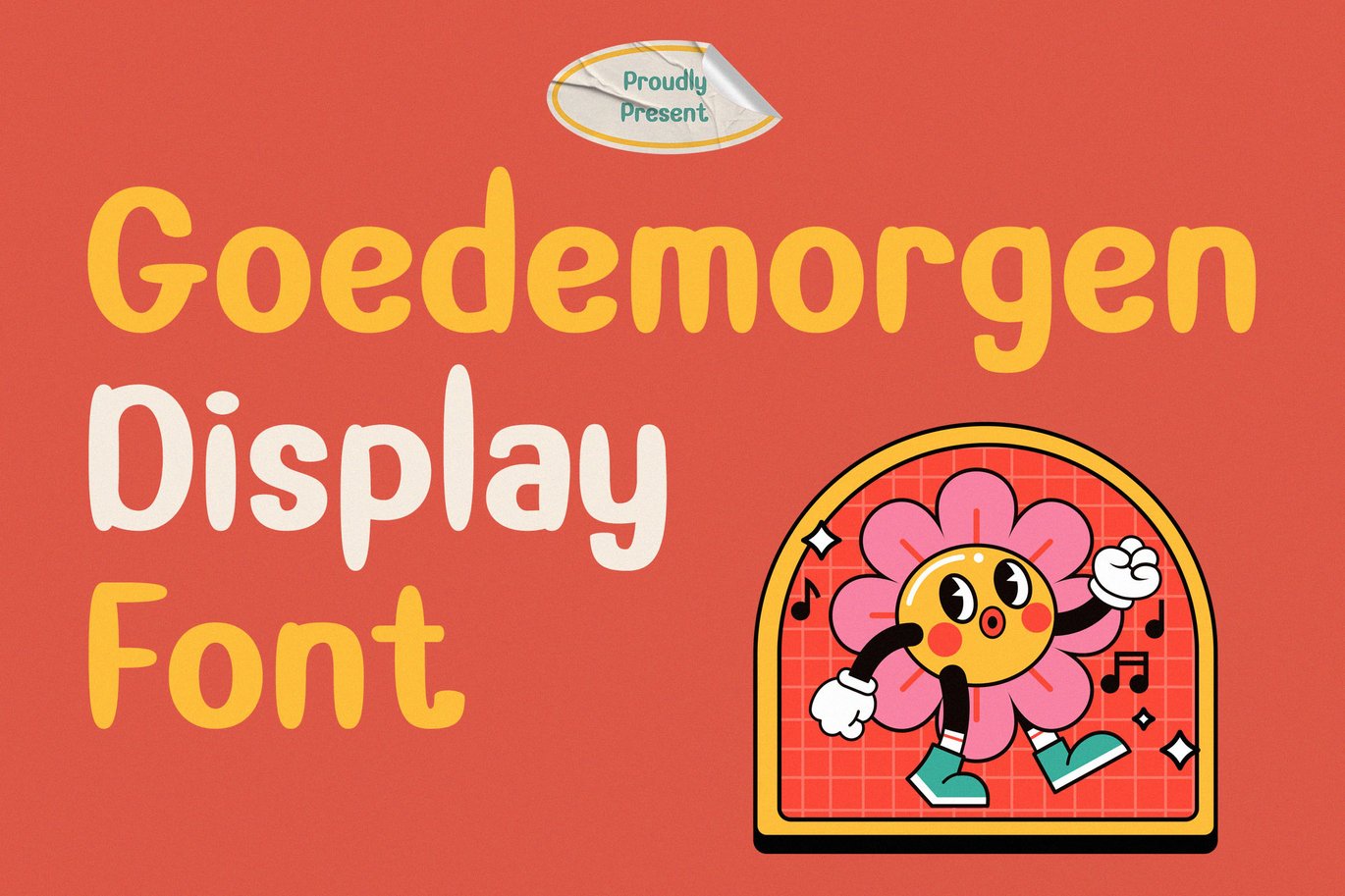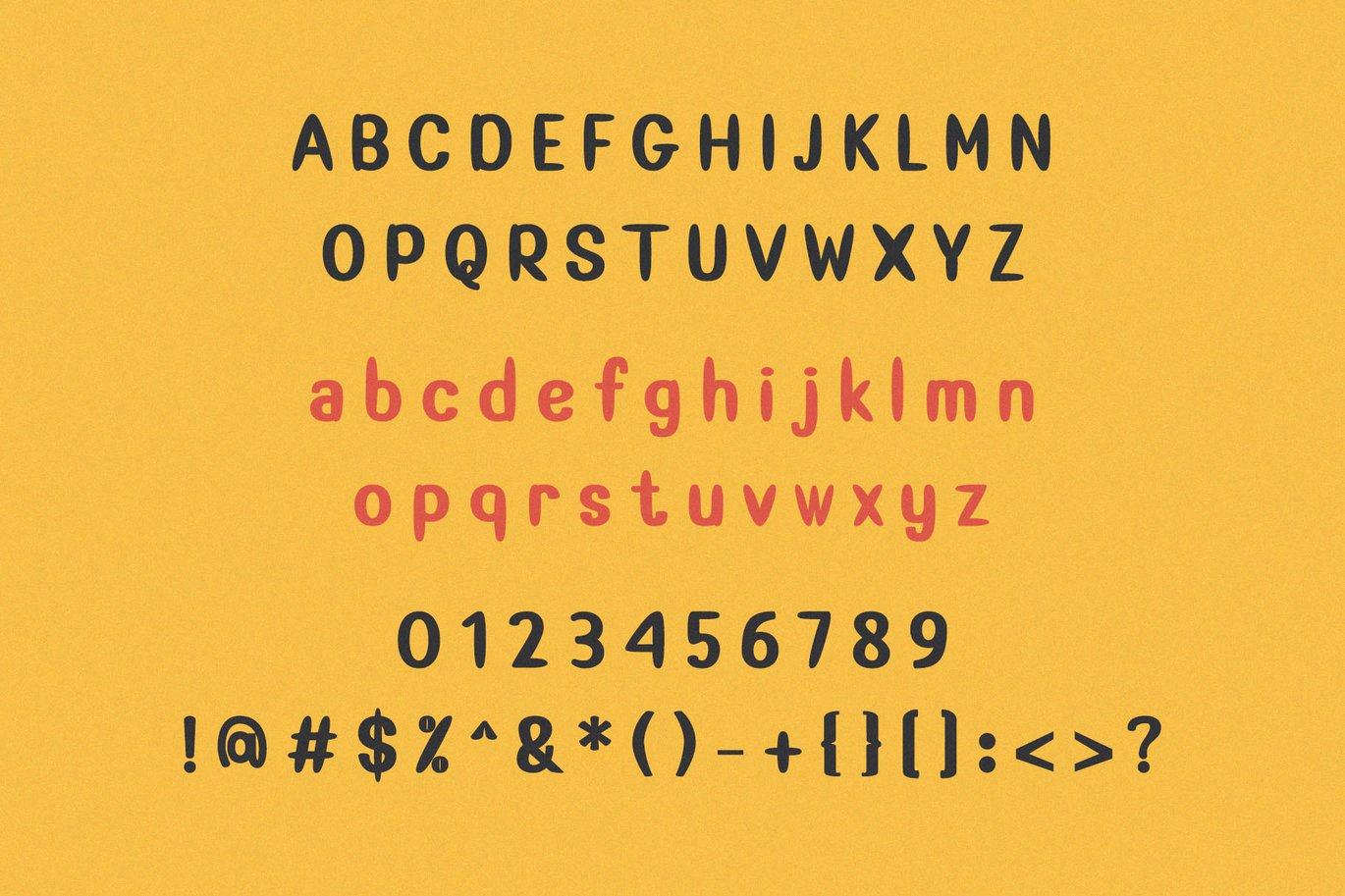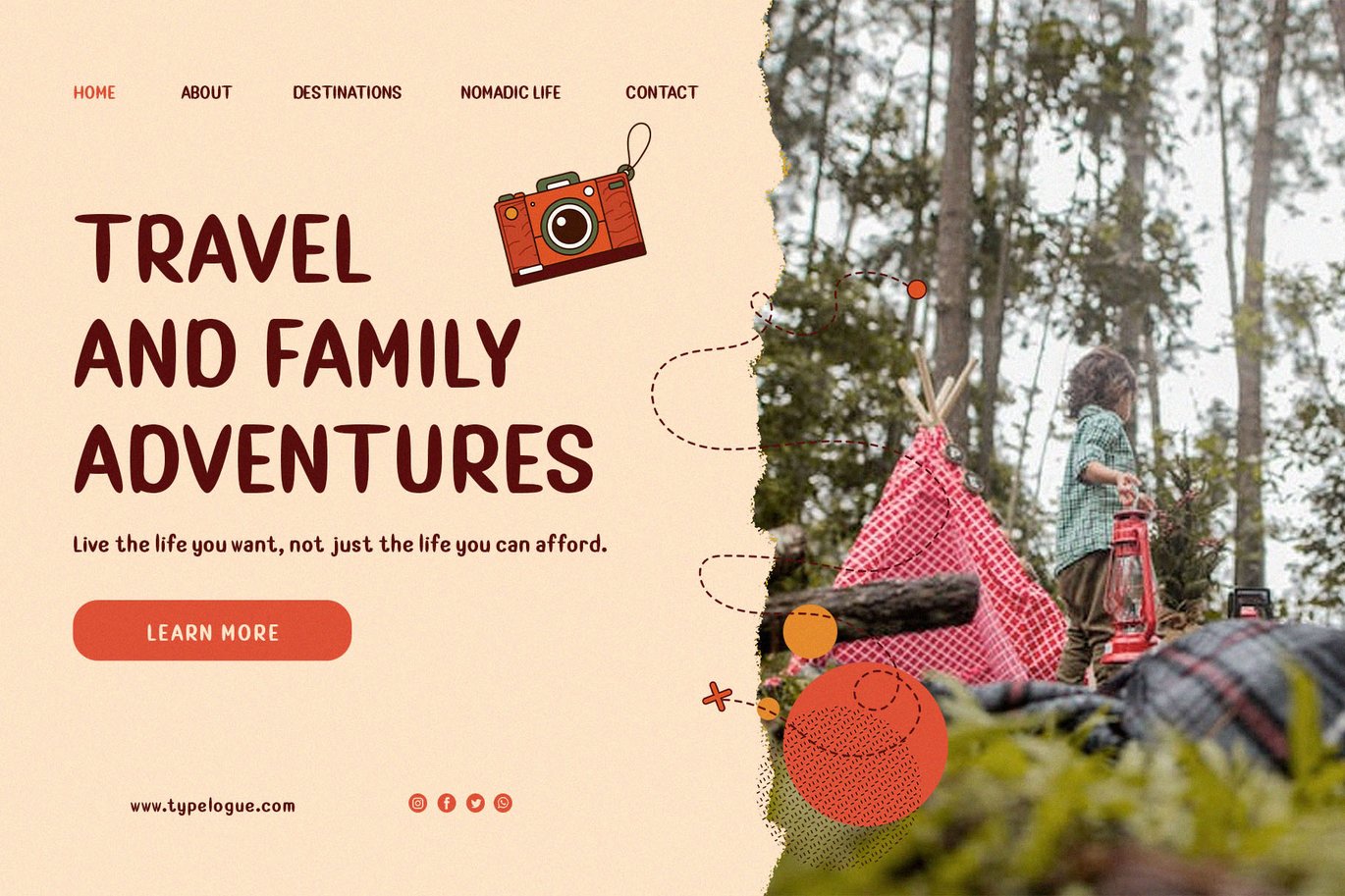
Goedemorgen – Display Font
Goedemorgen is a playful and cheerful display font perfect for adding a touch of retro fun to your designs. With its rounded edges and friendly curves, this font is sure to bring a smile to your face. Ideal for branding, posters, and packaging, this font is sure to make your designs stand out.